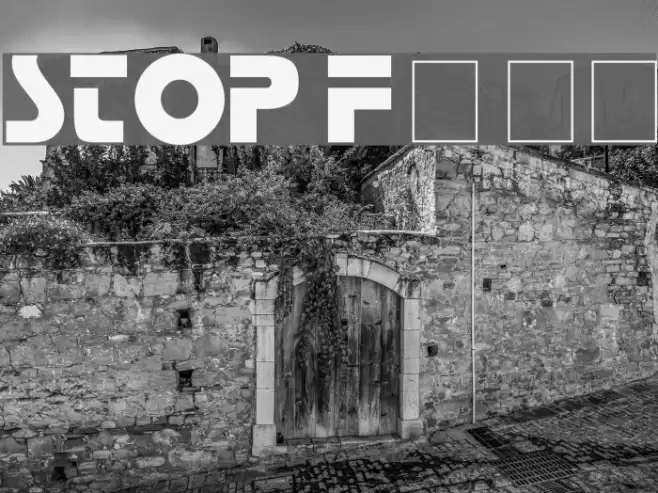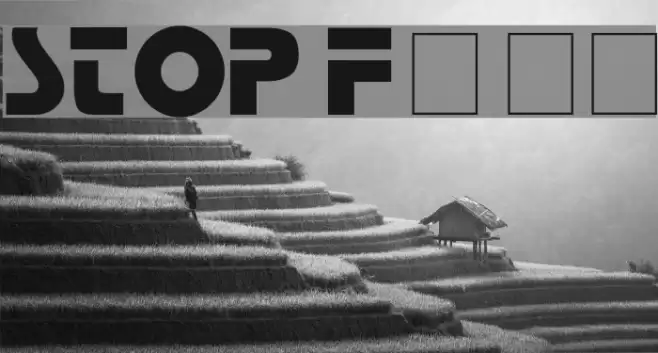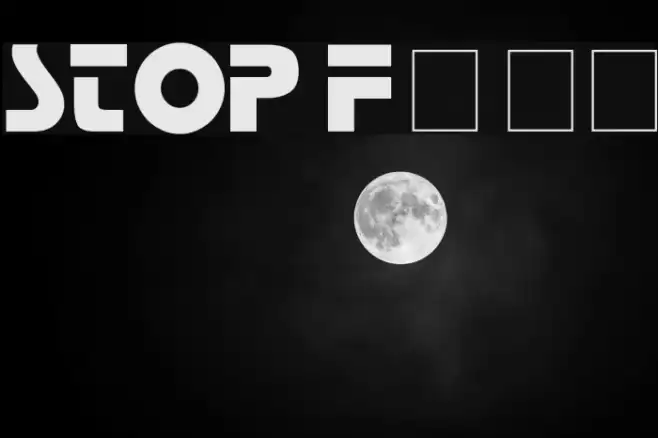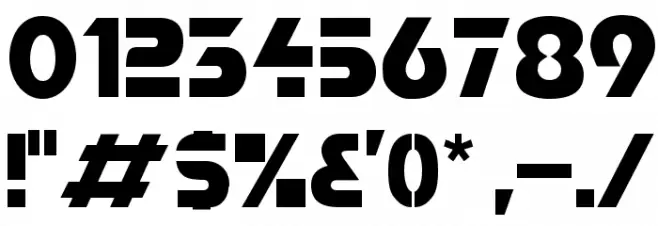
STOP Font
STOP Description
This font features a bold and geometric design, characterized by its strong, angular shapes and solid structure. The uppercase letters are crafted with sharp edges and a futuristic aesthetic, making them stand out with a commanding presence. The numbers and special characters maintain this boldness, ensuring consistency throughout the typeface. The overall design is modern and eye-catching, suitable for projects that require a strong visual impact. The font's unique style makes it ideal for headlines, posters, and branding materials where a contemporary and assertive look is desired.
A bold, geometric font with a futuristic and modern design from Uncategorized fonts.
- Proposed Projects: Ideal for use in headlines, posters, branding, and any project requiring a strong visual impact.
- Use Case: Headlines, Posters, Branding